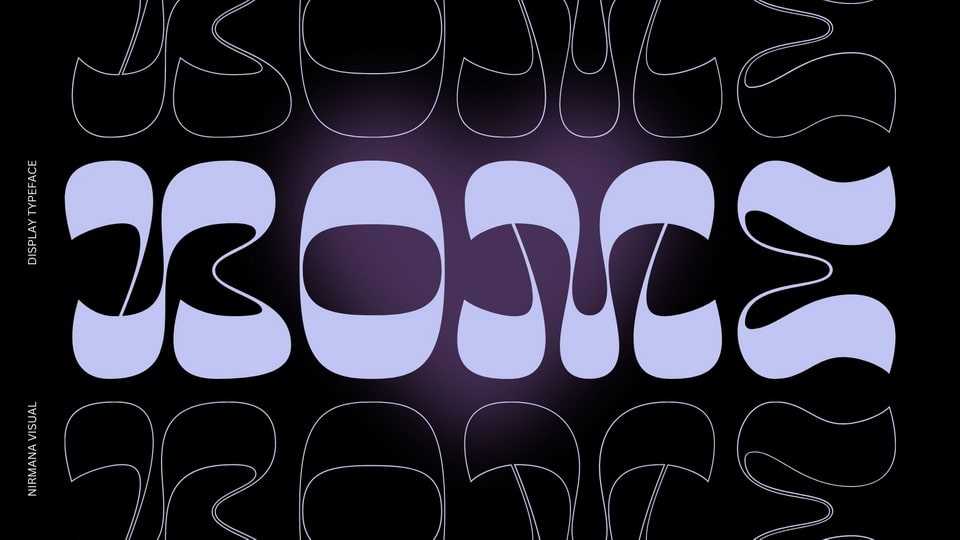
Download Bome font, a retro display typeface with a psychedelic vibe. Bome font offers beautiful typographic harmony for a diversity of design projects, including logos and branding, social media posts, advertisements and product designs.